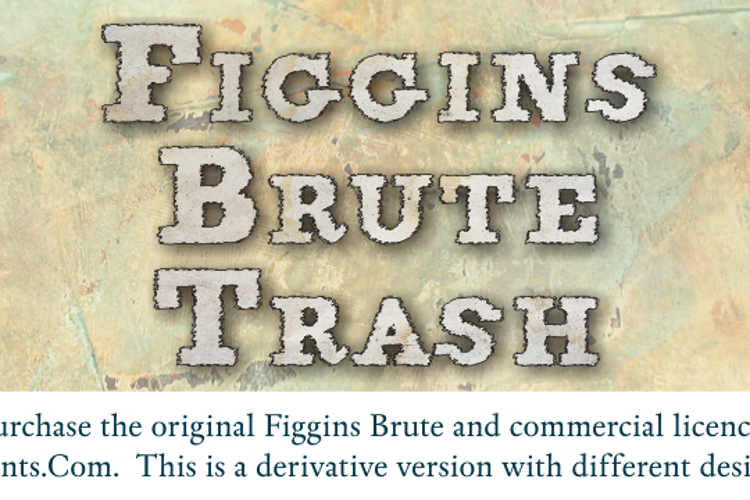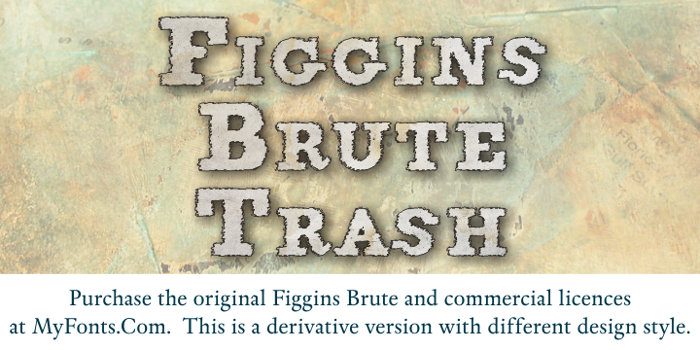
FigginsBrute Trash Font
About FigginsBrute Trash Font
FigginsBrute Trash Font is a Egyptian font and was created on . Since then, it has been downloaded 3,137 times and added to 32 collections. 5 people have liked FigginsBrute Trash Font and given it a thumbs up.
Figgins Brute Trash, by Intellecta Design